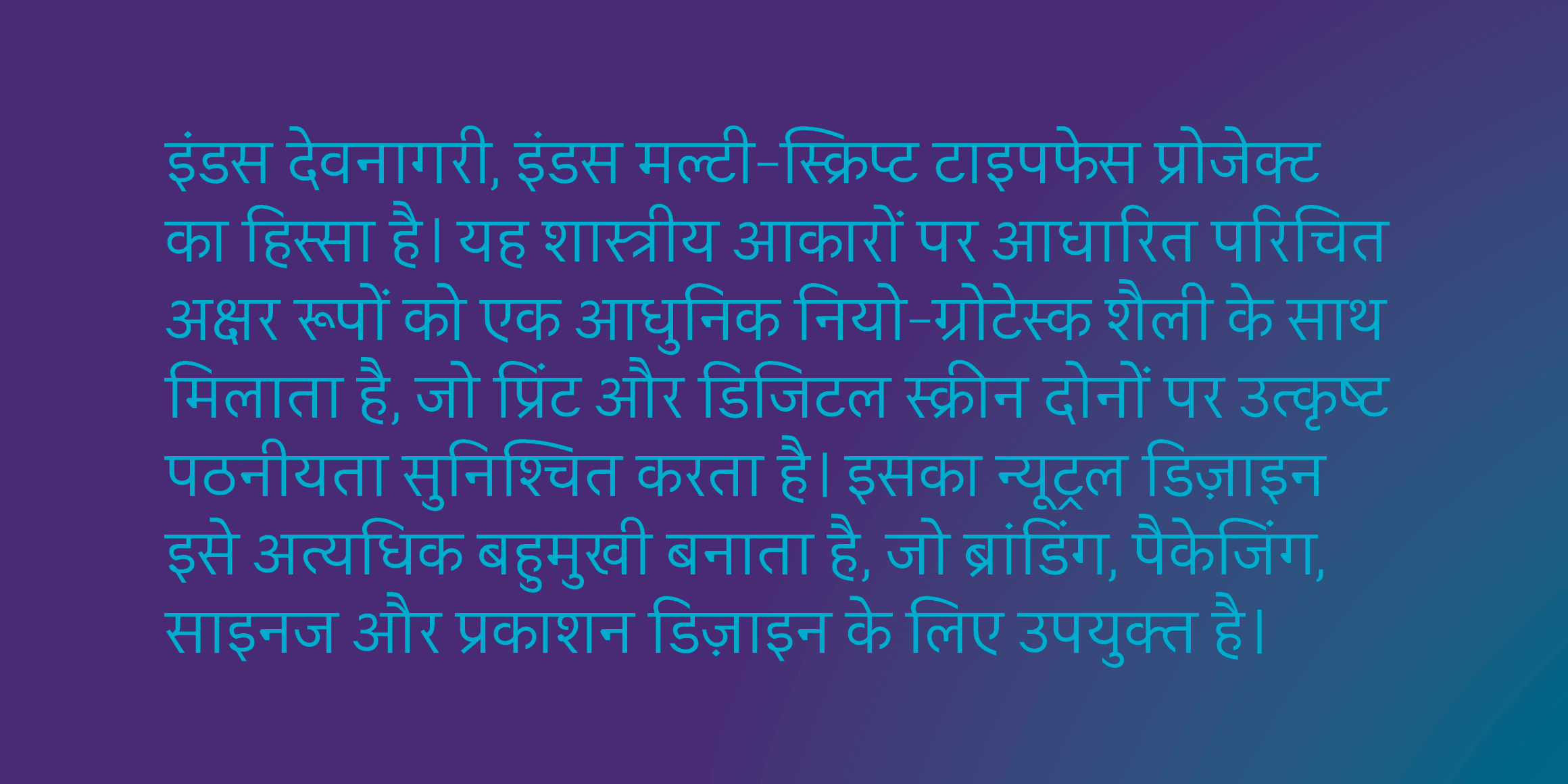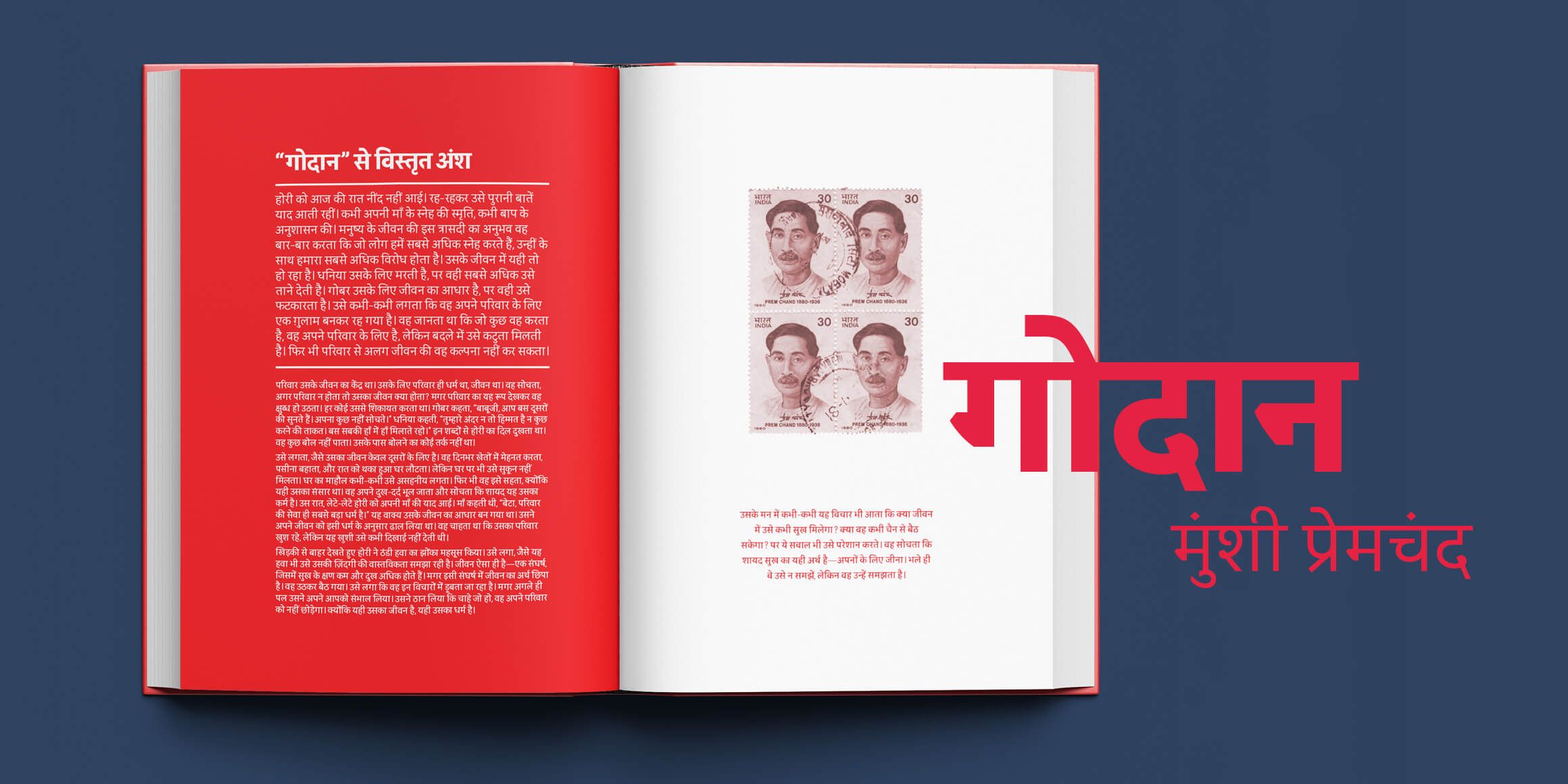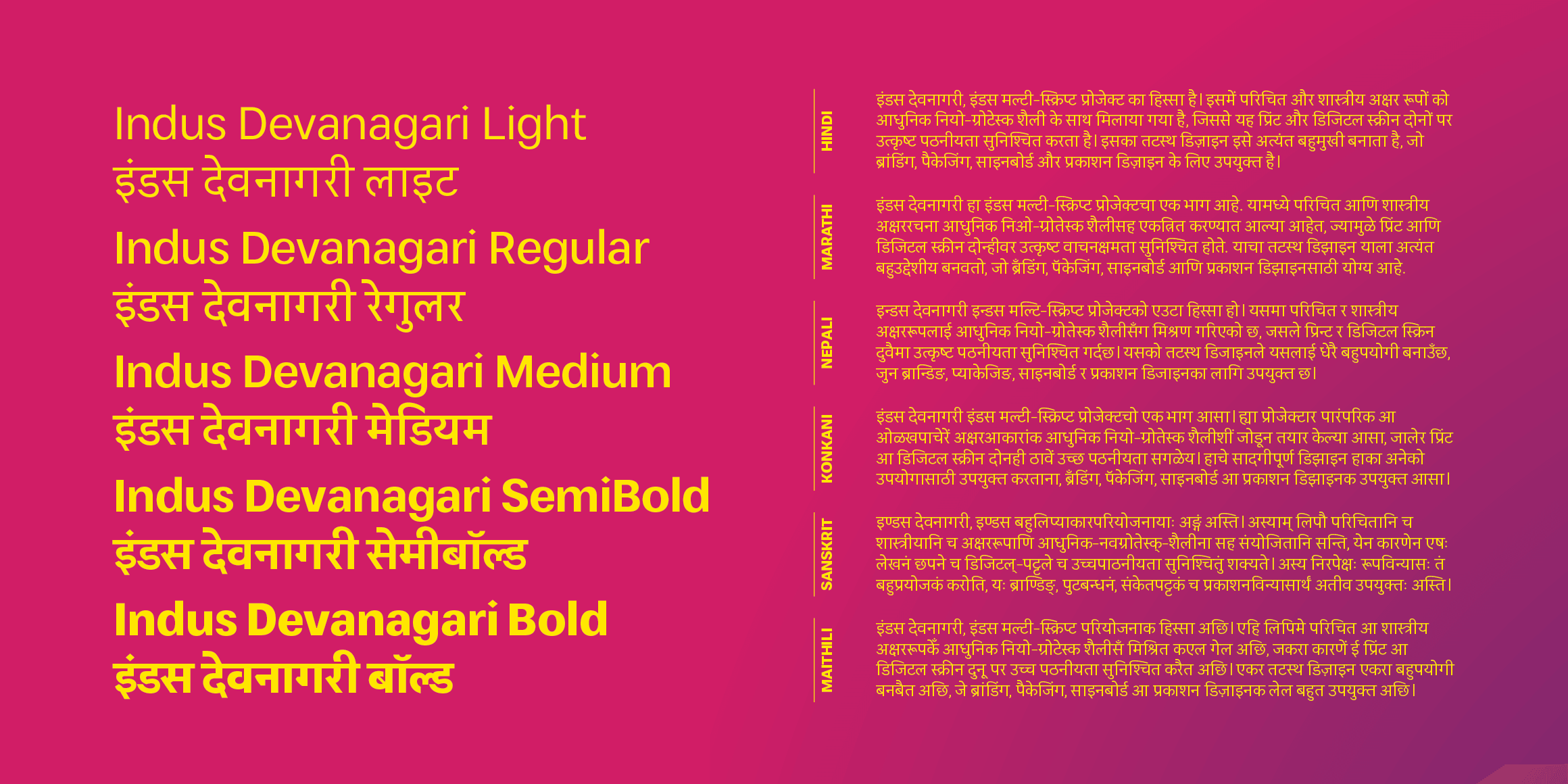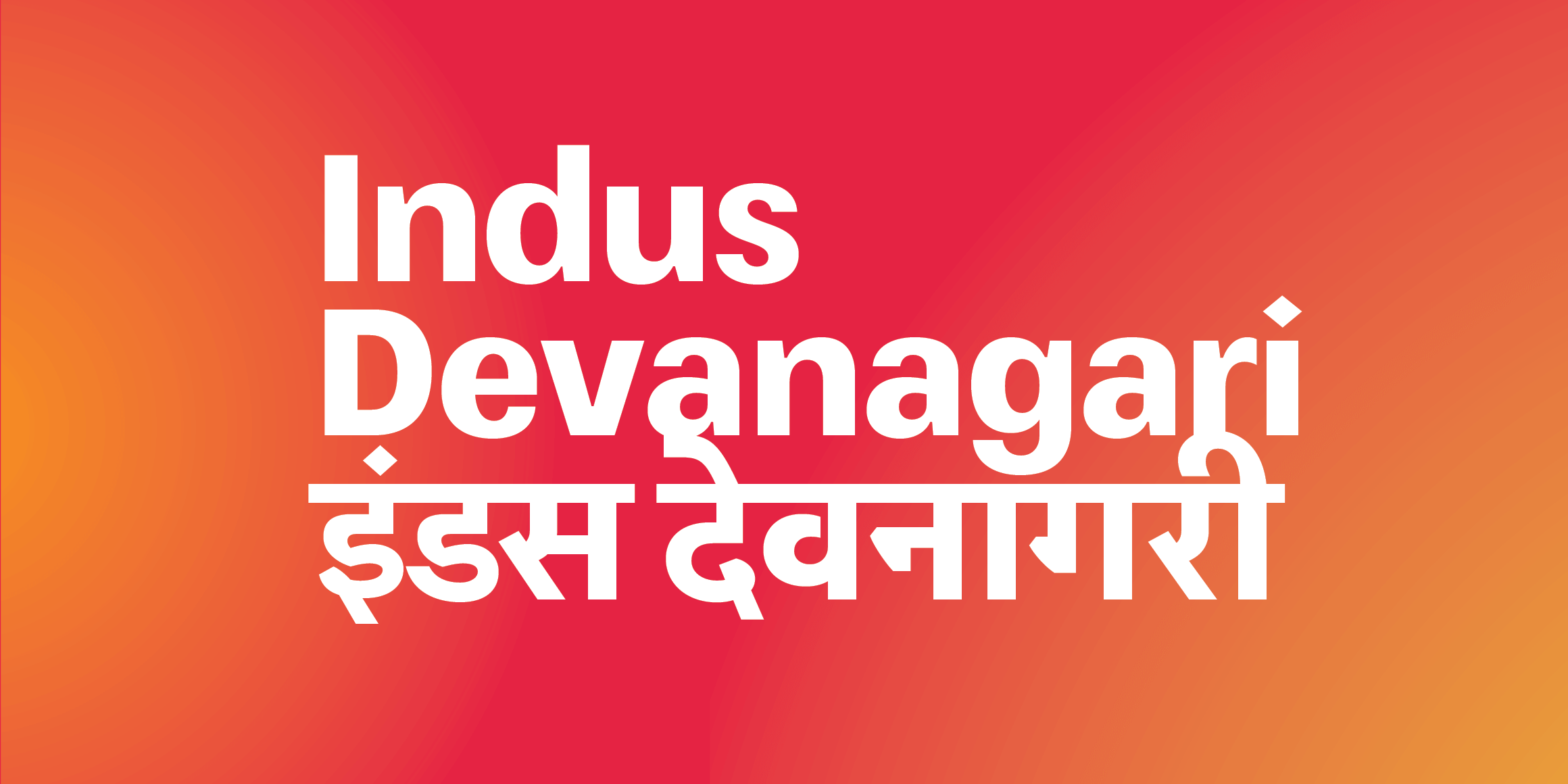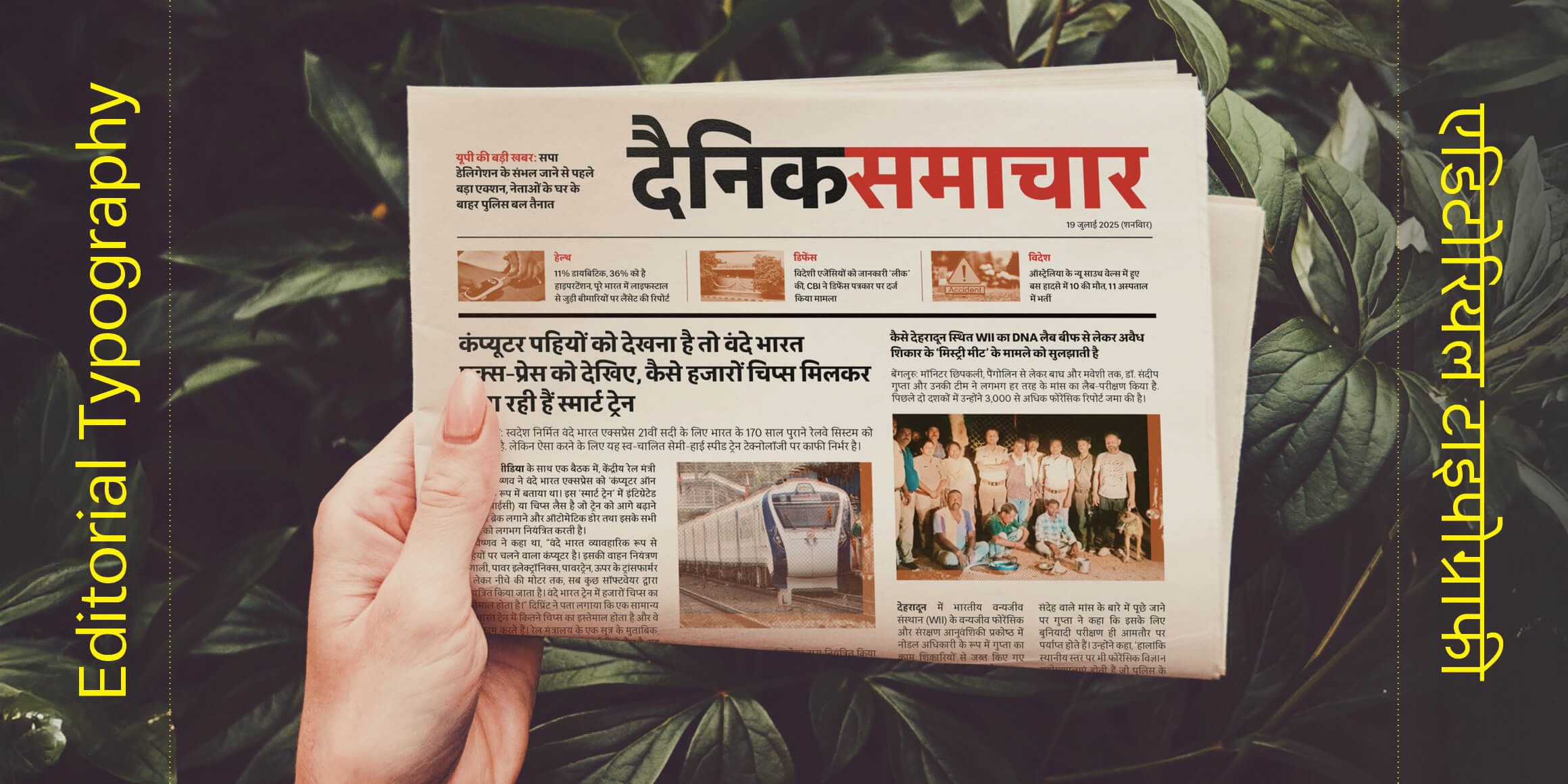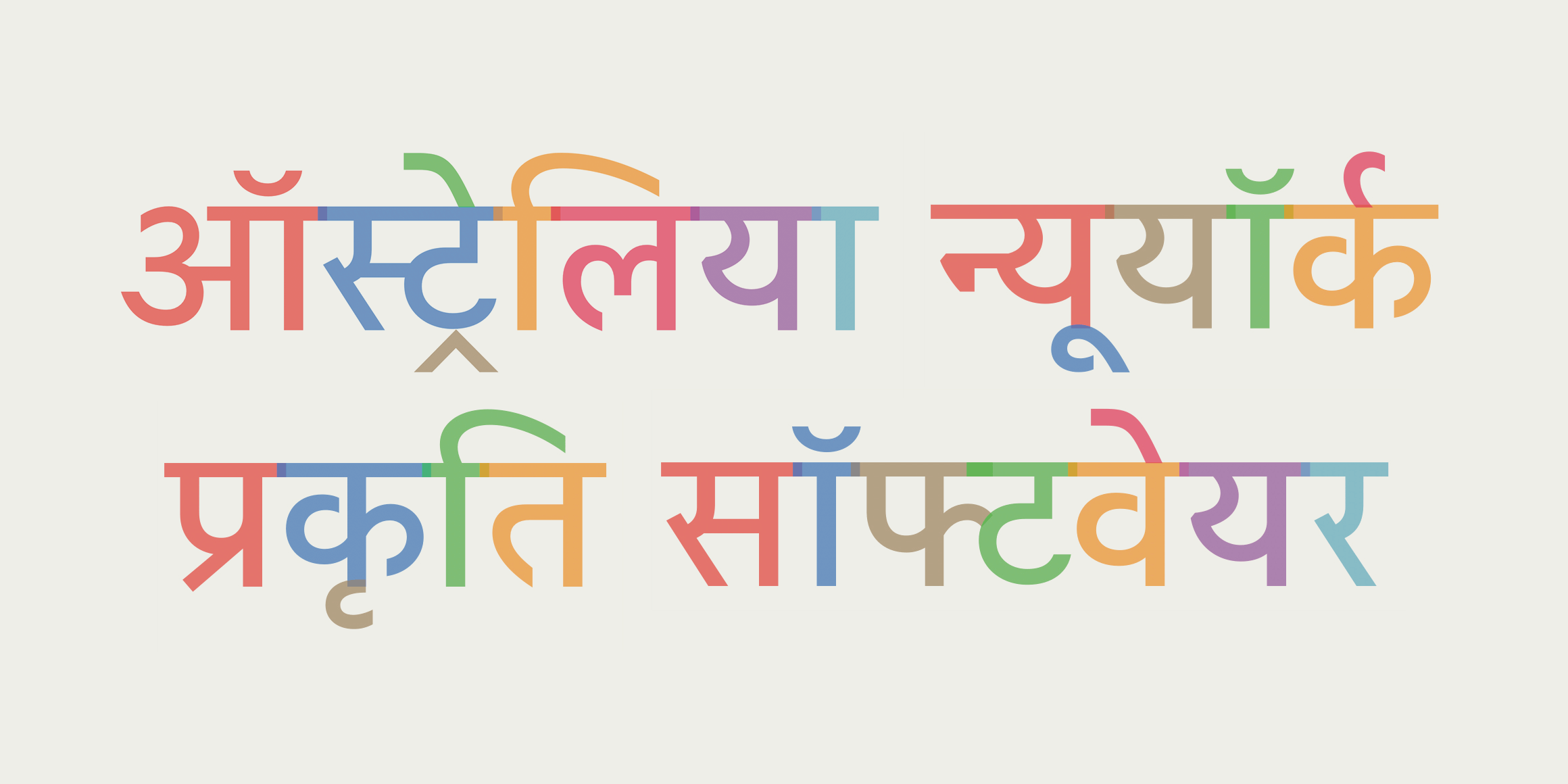
Indus देवनागरी
Indus Devanagari is part of the Indus multi-script typeface project. It features familiar letterforms inspired by classical shapes and proportions, blended with a modern Neo-grotesque style to ensure excellent legibility across print and digital screens. Its neutral design makes it highly versatile, and suitable for applications such as branding, packaging, signage, and publication design.